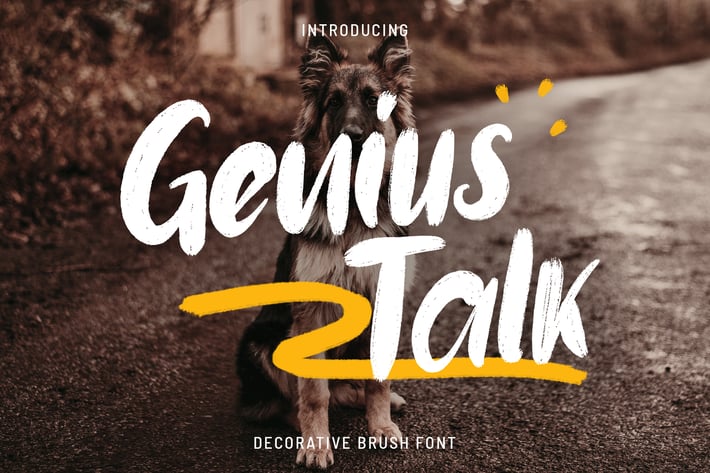
Genius Talk - Brush Font
This font is cool for branding, Birthday invites, Esport theme, Mugs, Business Cards, Quotes, Posters, and many more.
Font Type Features
+ Uppercase
+ Lowercase
+ Numerals & Punctuations